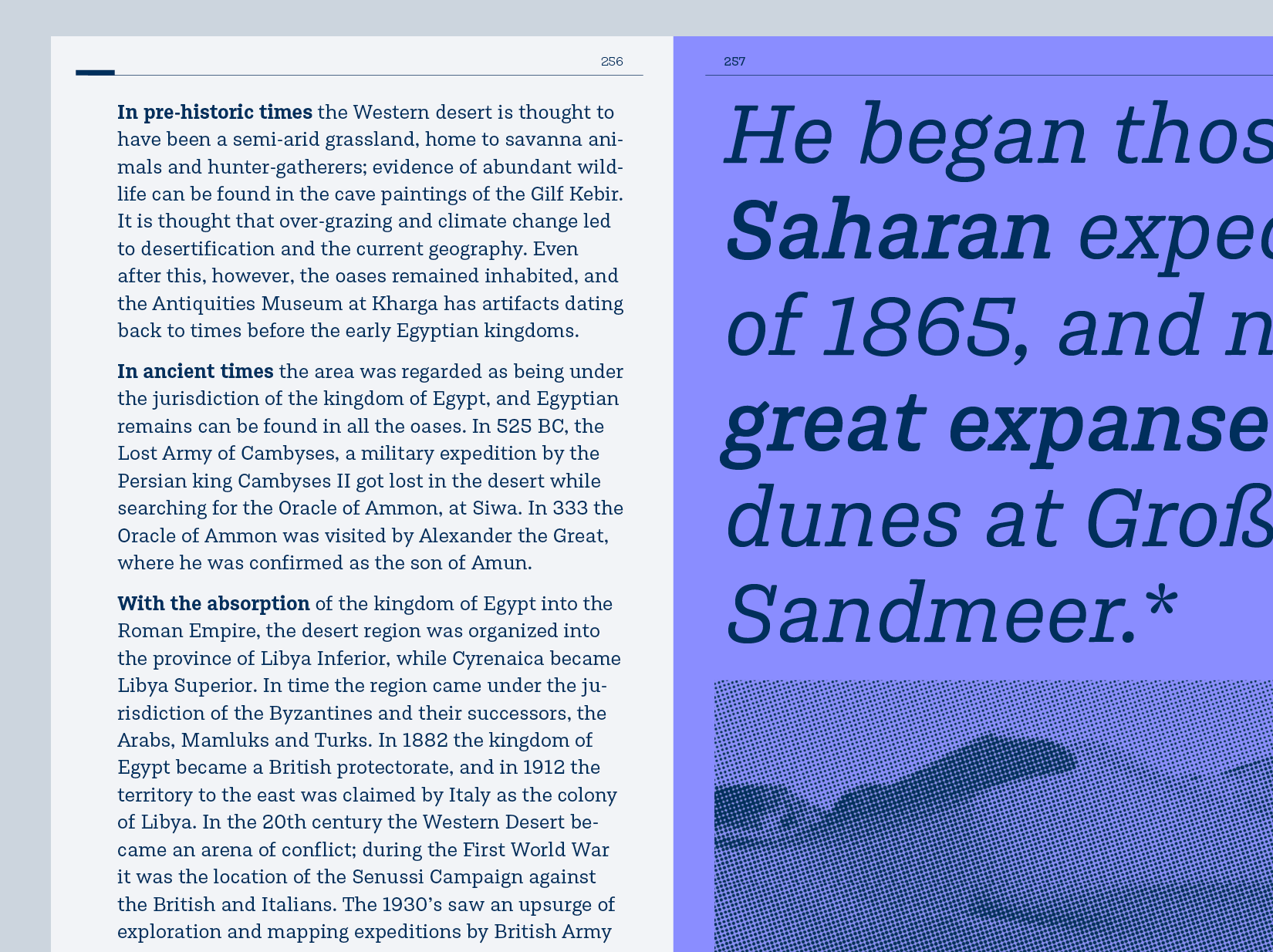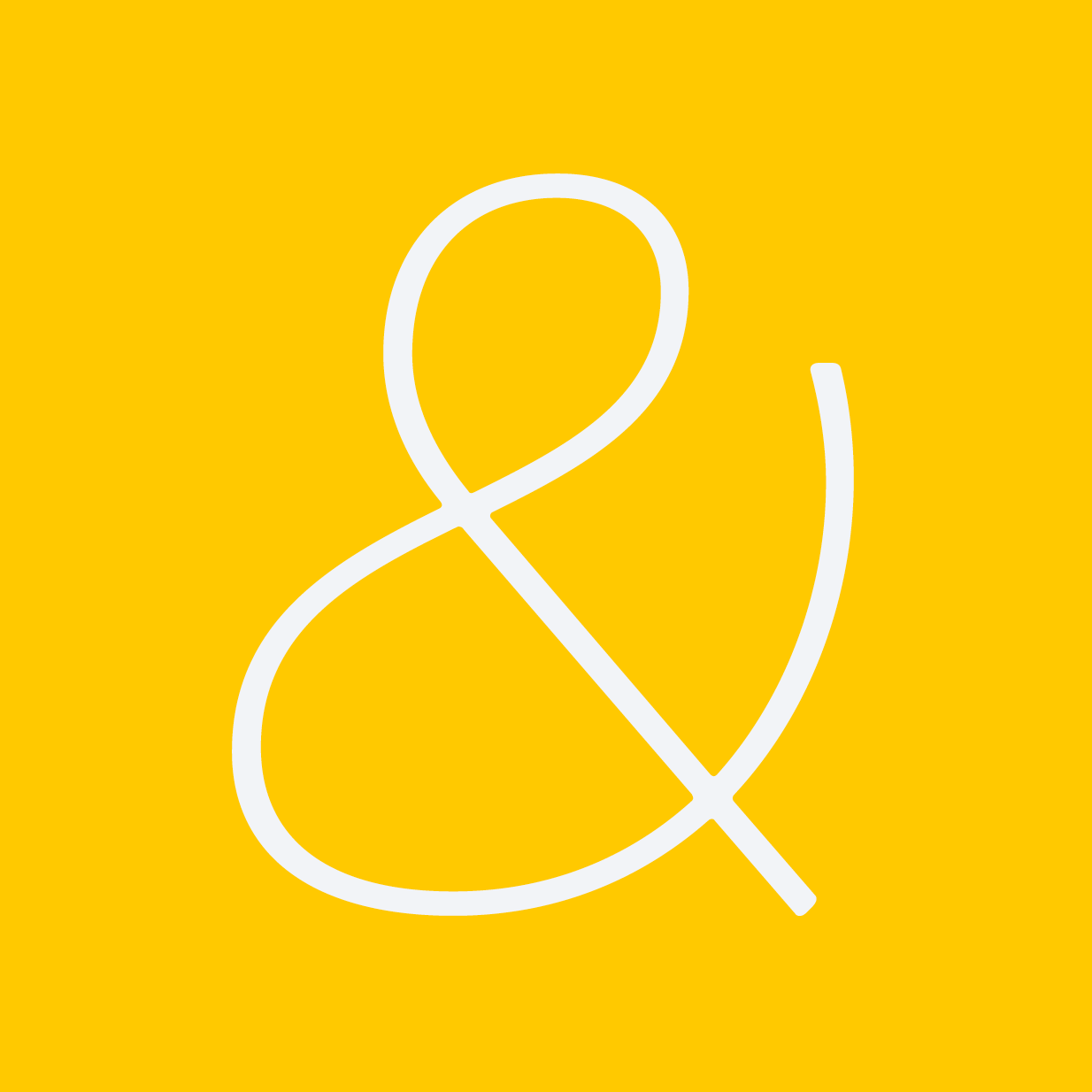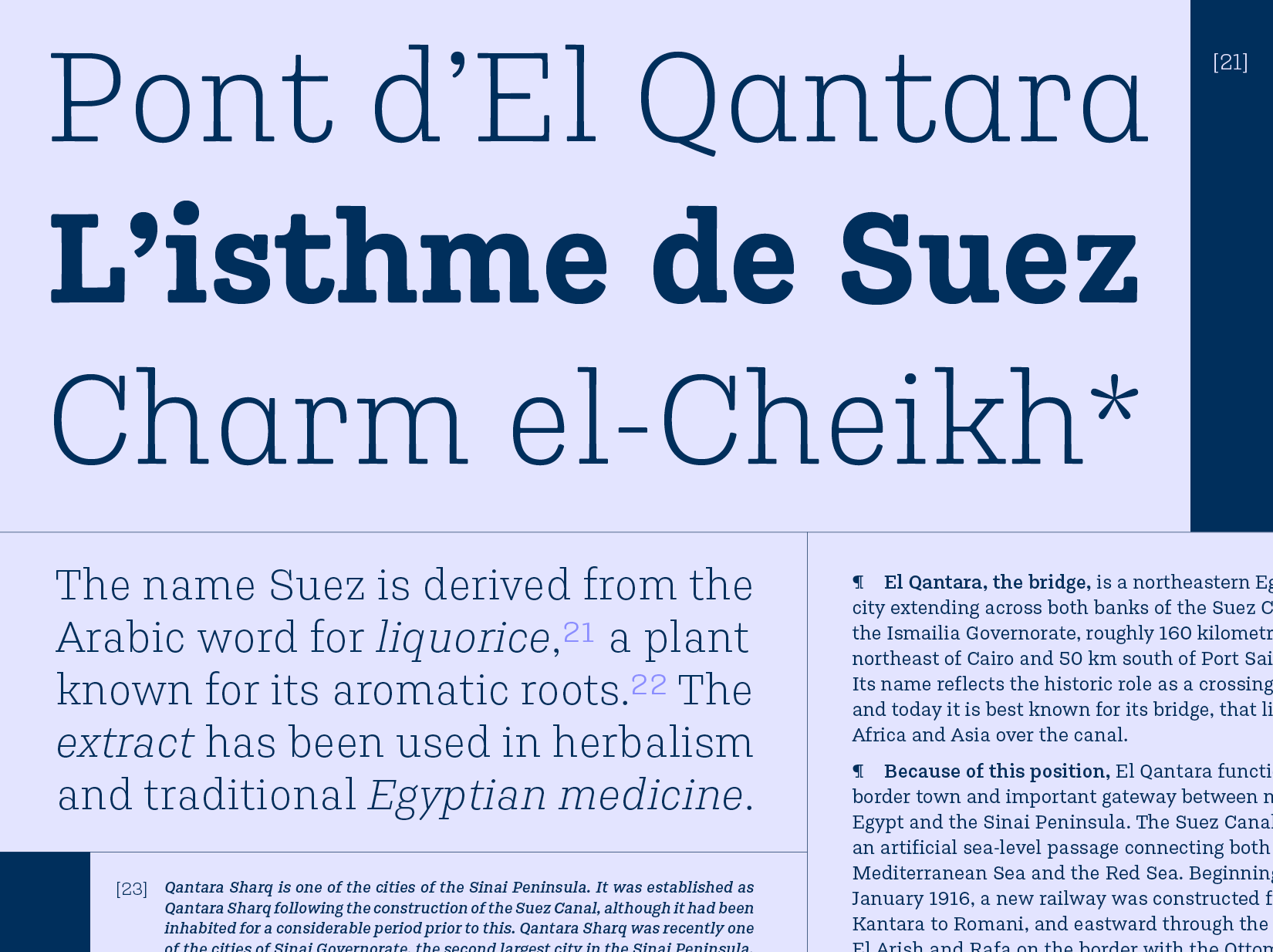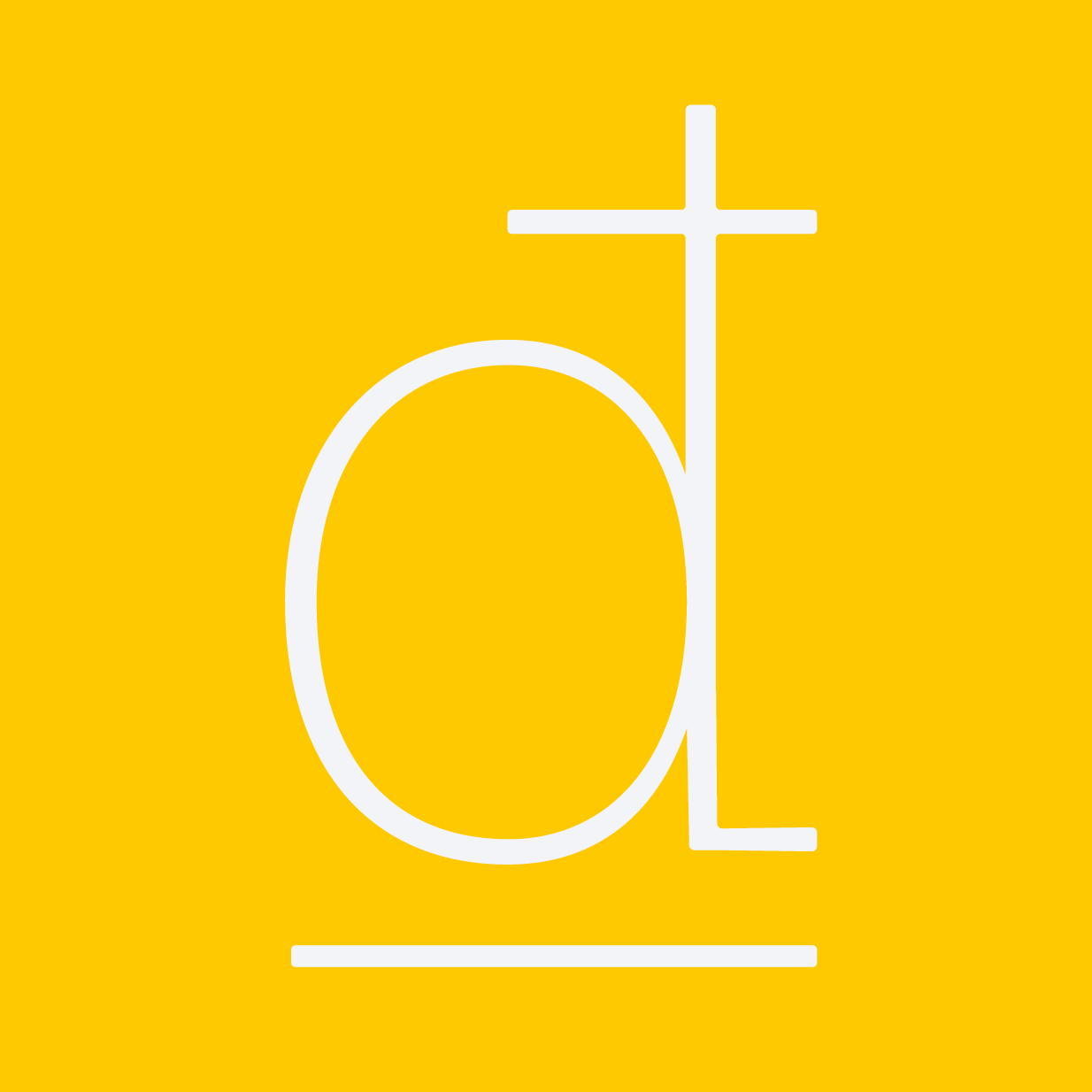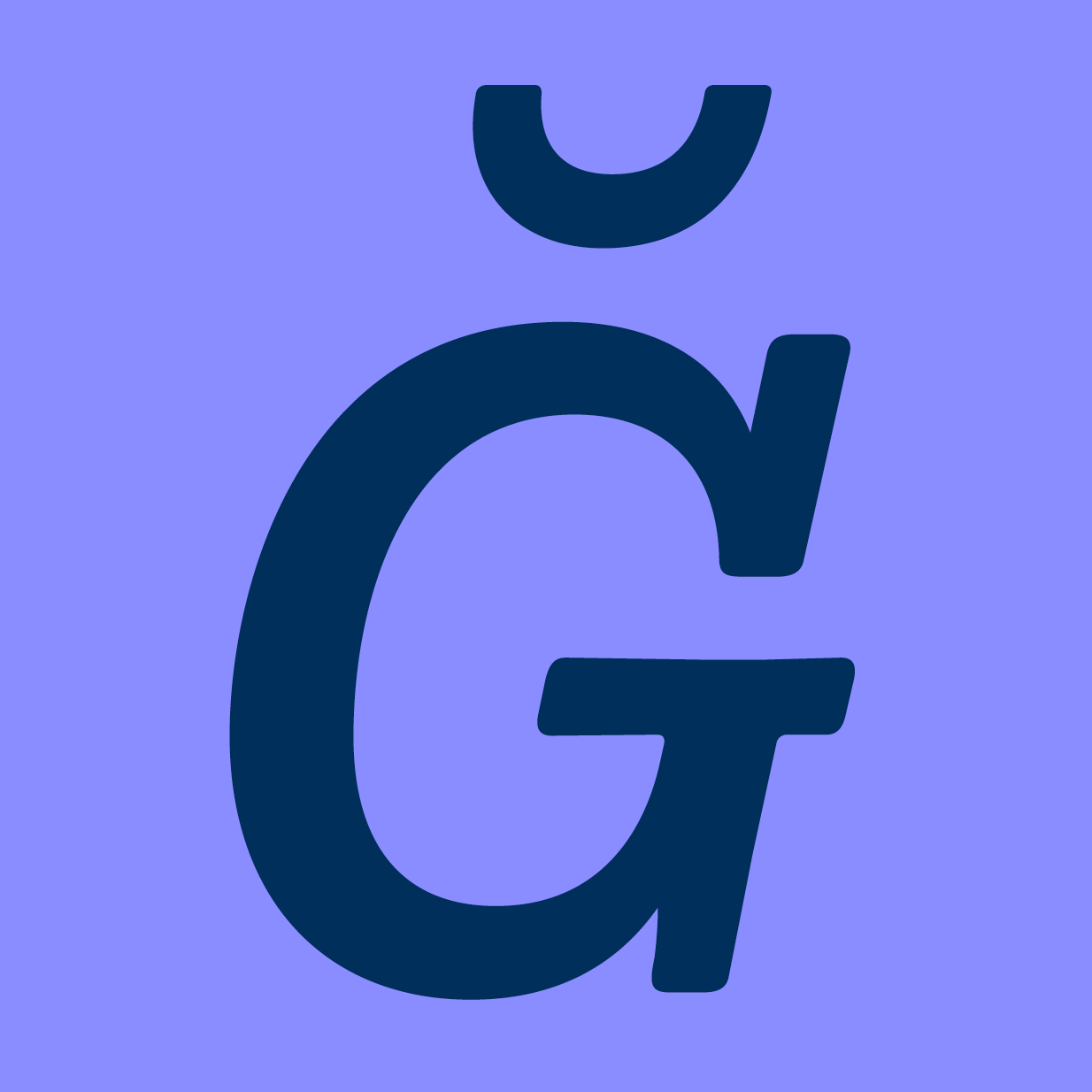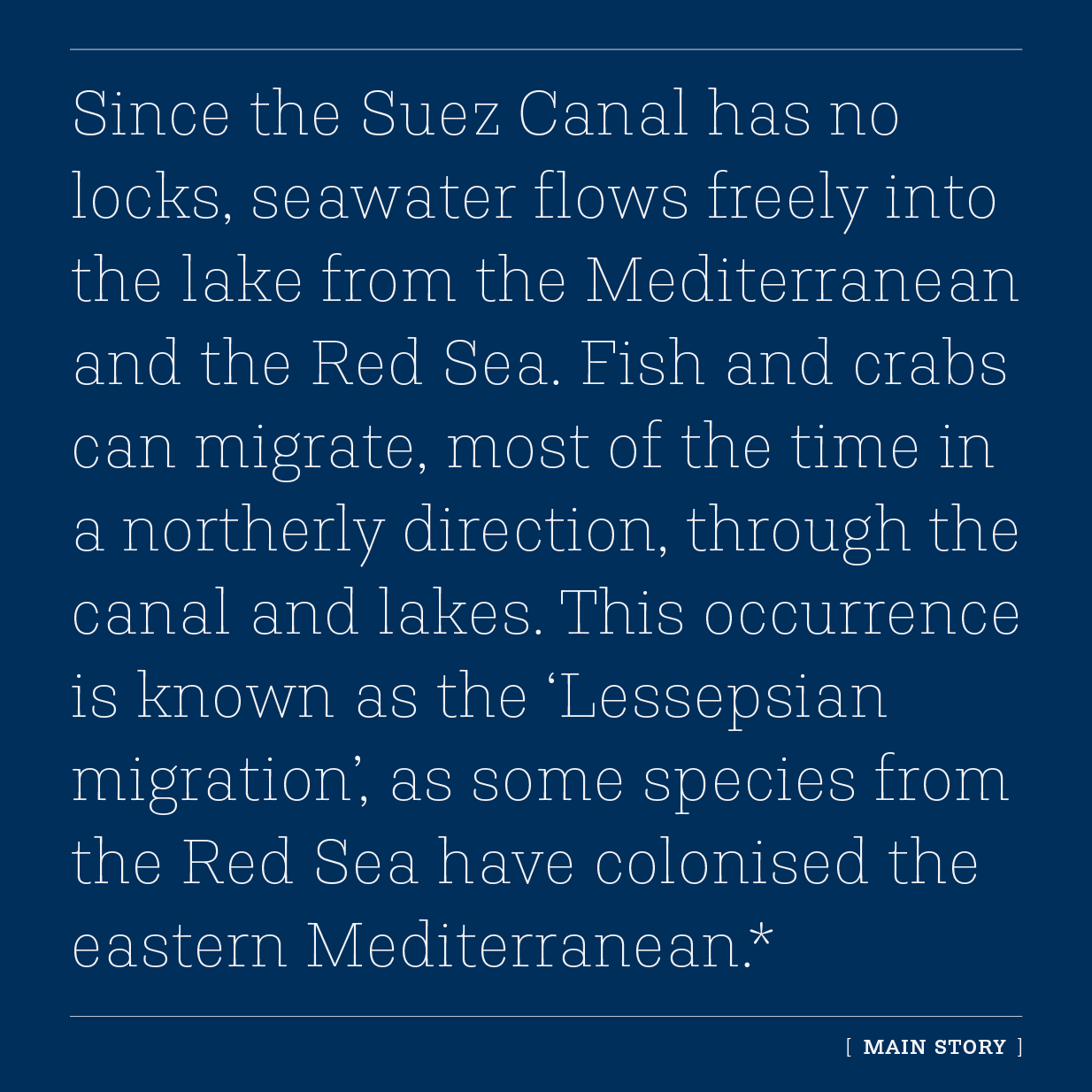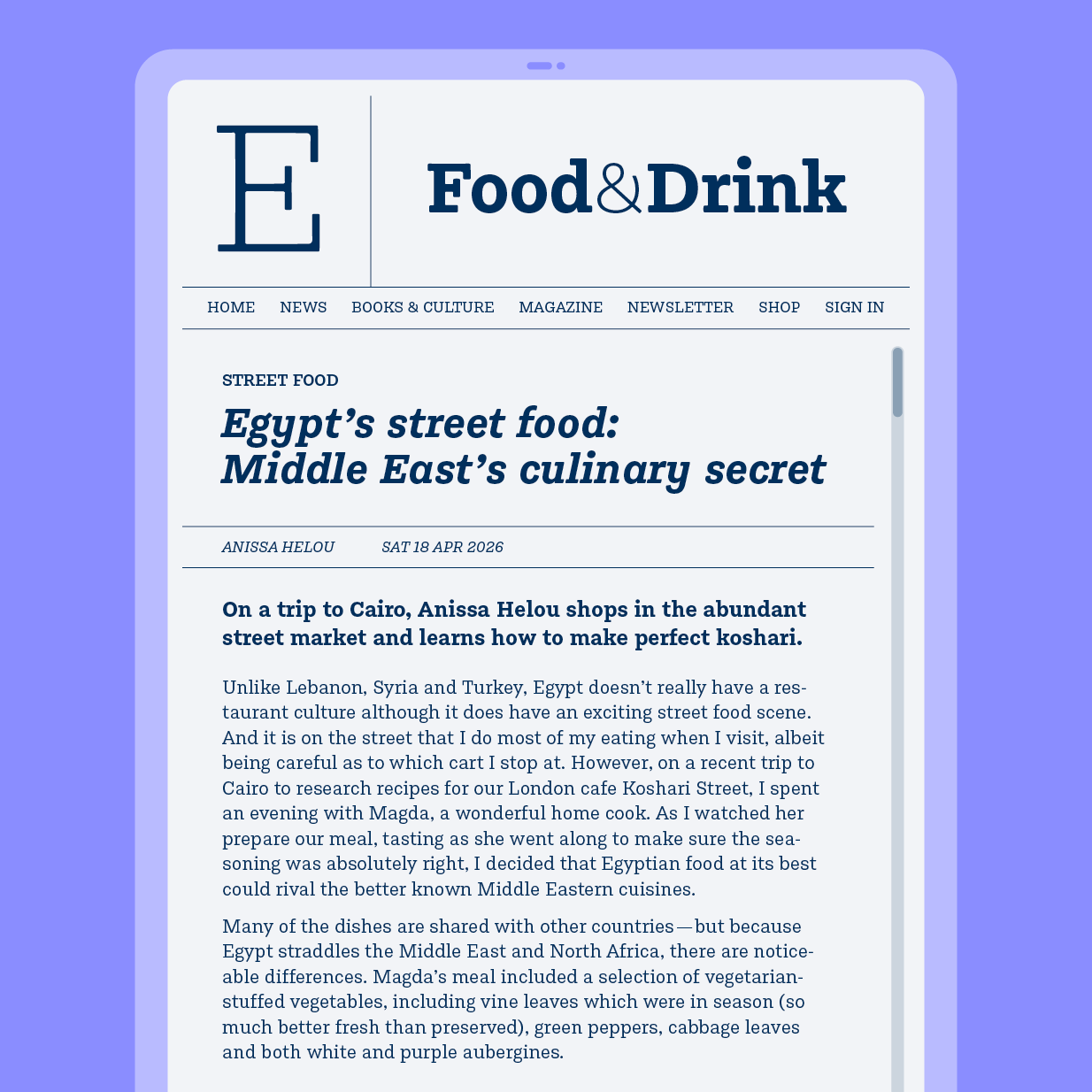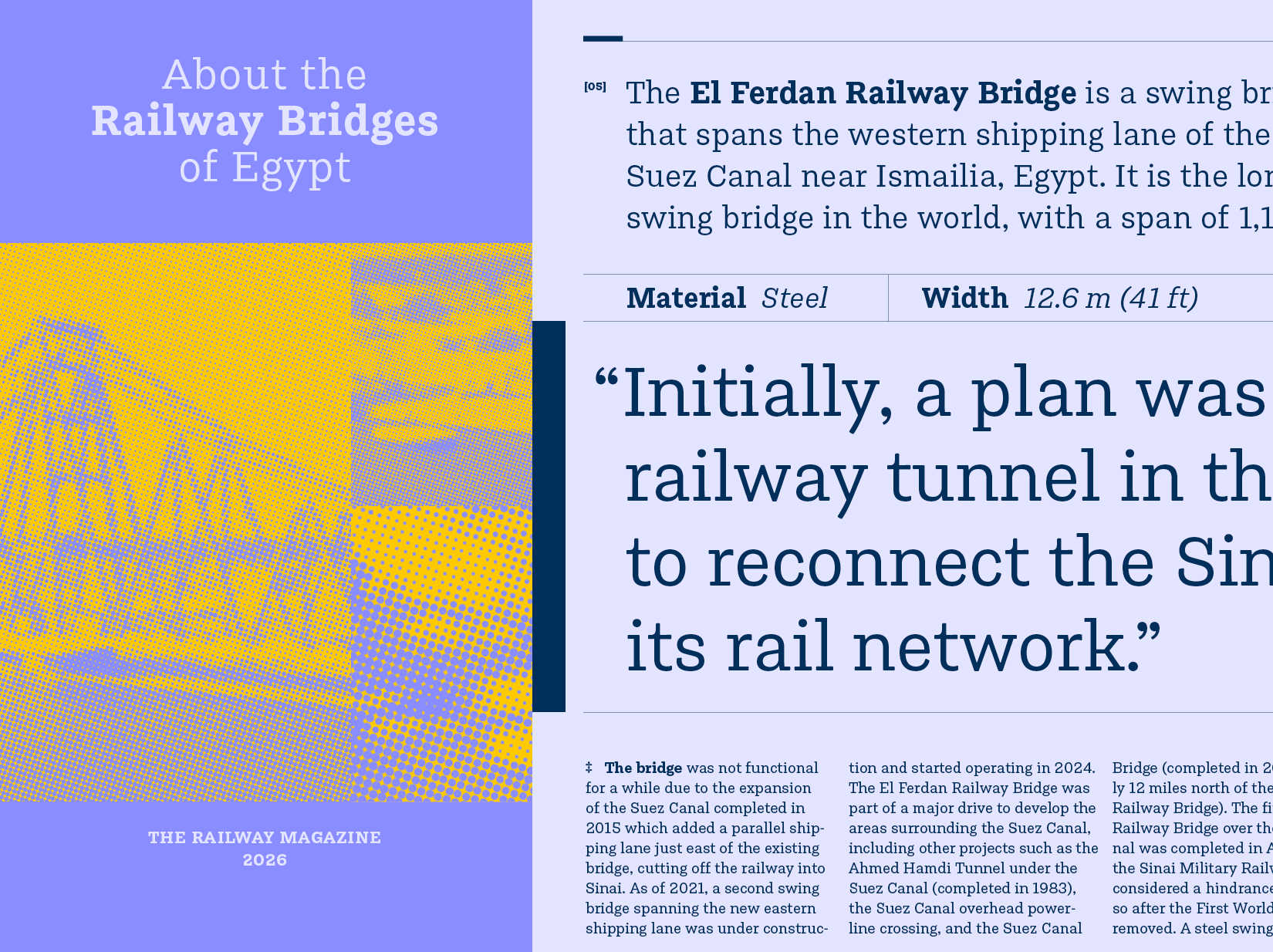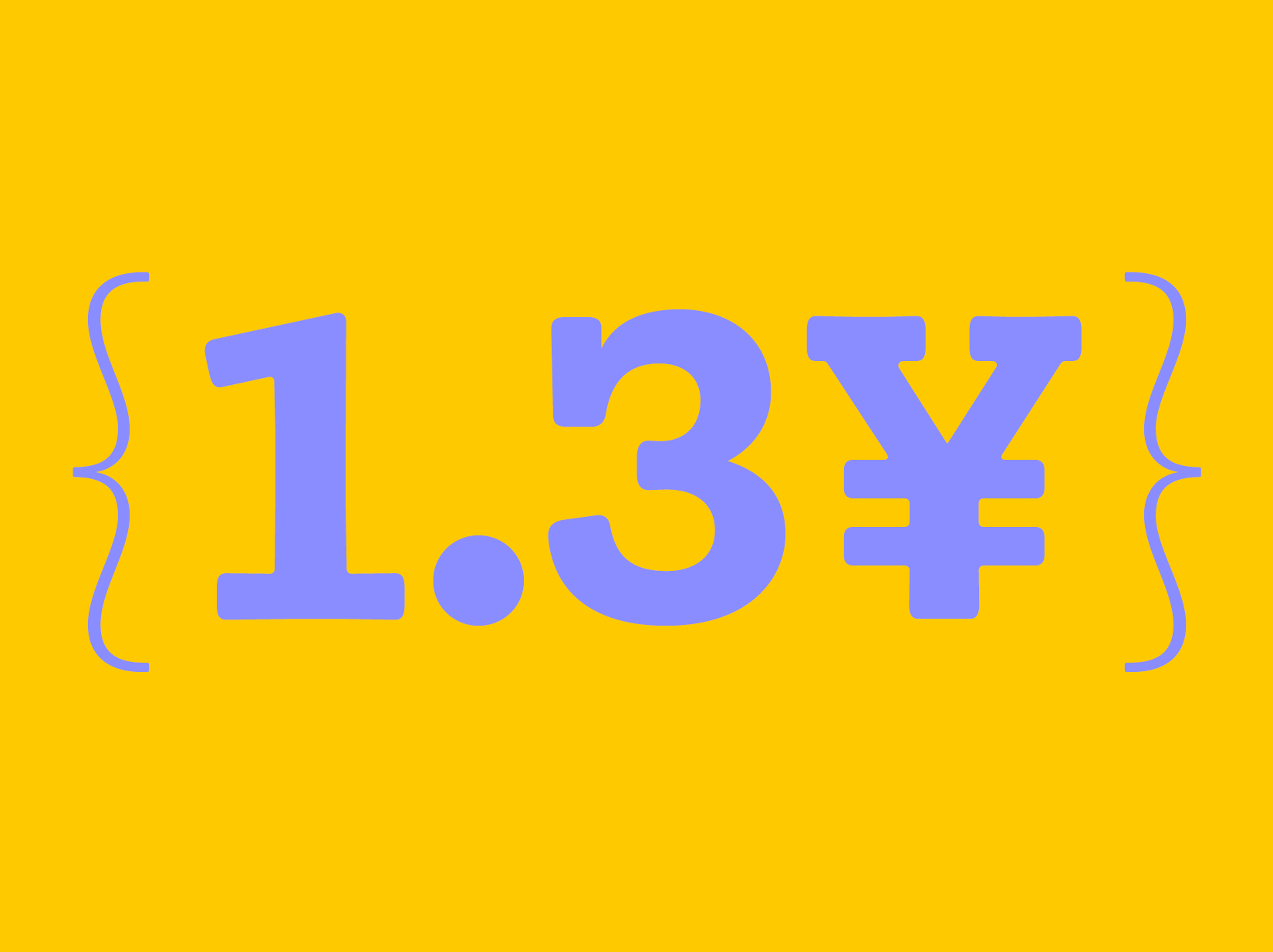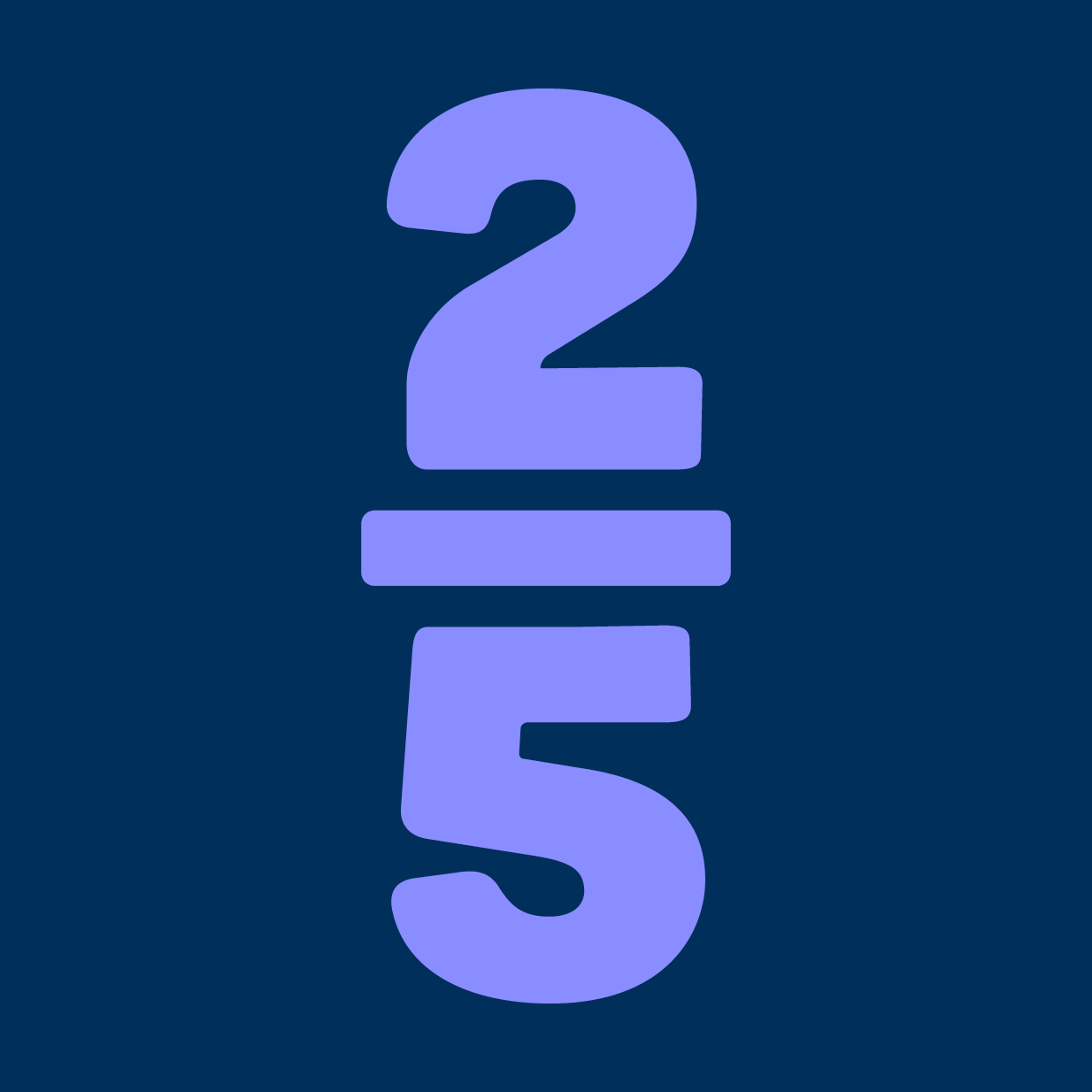
Qantara
Qantara is the square serif Egyptian you always wanted: clear, sturdy, warm, legible, economical and customisable.
Designer Jacques Le Bailly devised his ideal idea of a slab-serif over a long period of time, inspired by the Clarendon style and designs like Týfa Antikva with their low stroke contrast and bracketed serifs but also looking at the square-serif Egyptian tradition. By reducing the contrast as much as possible he was able to omit some of the vertical serifs (e.g. in c and s) that tend to disrupt readability and rhythm, especially in smaller sizes. The result is an inviting impression oscillating between impartial and curious.
Letterforms, numerals and proportions were designed for optimal legibility. While the lowercase characters are compact, the capitals and figures are broad and clear. Ascenders are higher than uppercase letters for better distinction. Single-story and more expressive alternates for lowercase a, c, f, g, j, r, s, t and y let you customise the flavour of the design to your liking and the intended impression. Versions with vertical serifs are also provided for E, F, G, J and the numerals 2 and 3 via stylistic sets.
The regular weight of Qantara is relatively dark and thus well suited for low-quality output techniques or standard resolution screens. Four more weights from extra light to bold plus oblique-style italics provide you with a full range of options for branding, signage, or any kind of information design.